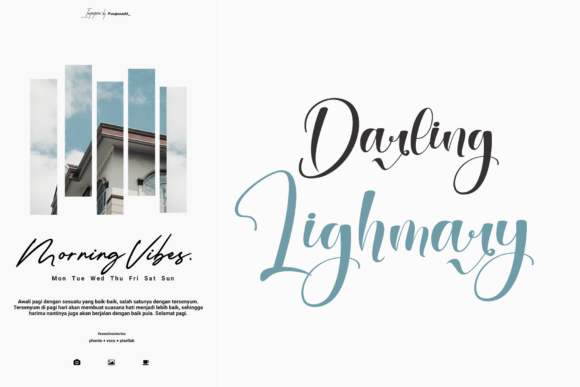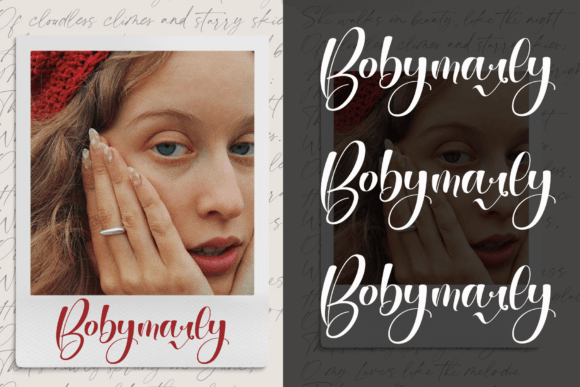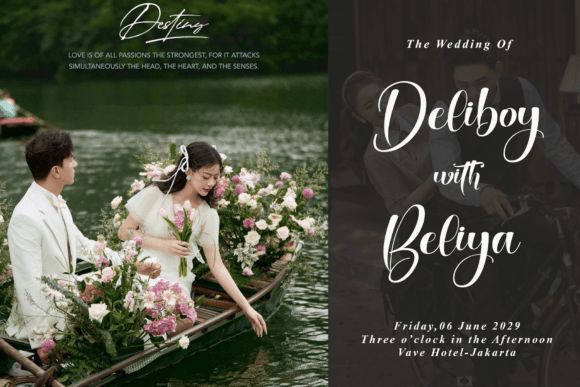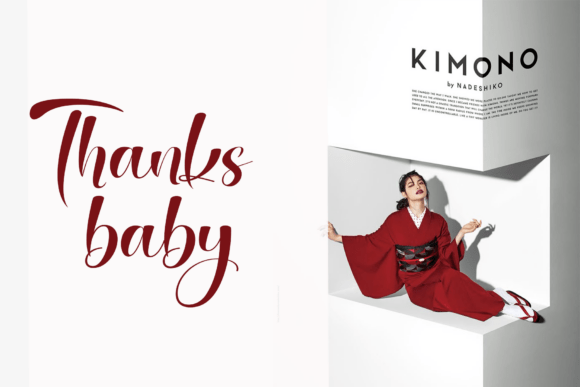
Discover the Charm of Buttering Font: Elevate Your Designs with a Timeless Handwritten Style
In the world of typography, few fonts manage to capture the essence of elegance and charm as effectively as the Buttering Font. This lovely and timeless handwritten font has been making waves among designers and crafters alike, and for good reason. Its unique blend of classic appeal and modern flair makes it the perfect choice for creating eye-catching logos, branding materials, and quotes that stand out from the crowd.
The Unique Touch of Buttering Font
One of the standout features of the Buttering Font is its distinctive and beautiful touch. Every letter in this font has been carefully crafted to bring a sense of individuality and personality to your designs. Unlike more uniform and traditional fonts, Buttering Font offers a level of uniqueness that can make your designs come alive. Whether you’re working on a logo, a branding project, or a quote, this font adds a personal touch that resonates with viewers.
Why Choose Buttering Font for Your Designs?
So, why should you choose Buttering Font for your next design project? Here are just a few compelling reasons:
- Elegance and Charm: Buttering Font brings a level of elegance and charm to your designs that’s hard to achieve with more generic fonts. Its handwritten style adds warmth and personality, making your designs more relatable and engaging.
- Versatility: This font is incredibly versatile, making it suitable for a wide range of design projects. From logos and branding materials to quotes and social media graphics, Buttering Font can adapt to any style or theme.
- Eye-Catching: In a world where designs are constantly competing for attention, it’s crucial to stand out. Buttering Font’s unique and beautiful touch ensures that your designs grab the attention they deserve and leave a lasting impression on viewers.
- Easy to Read: Despite its elegant and handwritten style, Buttering Font remains easy to read, making it a practical choice for designs where clarity is key.
Applications of Buttering Font
The applications of Buttering Font are vast and varied. Here are a few ideas to get you started:
- Logo Design: Create a memorable logo that captures the essence of your brand with Buttering Font. Its unique style ensures that your logo stands out and is easily recognizable.
- Branding Materials: Consistency is key in branding, and Buttering Font can help you maintain a cohesive look across all your materials, from business cards to brochures.
- Quotes and Social Media Graphics: Add a touch of elegance to your quotes and social media graphics with Buttering Font. Its readability and charm make it perfect for sharing inspiring quotes or highlighting key messages.
Tips for Using Buttering Font Effectively
To make the most of Buttering Font, here are a few tips to keep in mind:
- Pair it with Complementary Fonts: While Buttering Font is stunning on its own, pairing it with complementary fonts can enhance its beauty. Look for fonts that offer a good contrast in style and weight.
- Experiment with Colors: The right color scheme can elevate your design and make Buttering Font truly pop. Don’t be afraid to experiment with different colors to find the perfect match.
- Consider Your Audience: As with any design choice, it’s essential to consider your audience. Buttering Font’s elegant and charming style makes it suitable for a wide range of audiences, but ensure it aligns with your brand’s voice and message.
Buttering Font is more than just a font – it’s a design statement. Its timeless handwritten style, unique touch, and versatility make it an excellent choice for designers and crafters looking to elevate their designs. Whether you’re creating logos, branding materials, or quotes, Buttering Font offers a level of elegance and charm that’s hard to match. So, why settle for ordinary when you can make your designs extraordinary with Buttering Font?
Embrace the charm of Buttering Font and discover a world of design possibilities that are as limitless as your imagination.